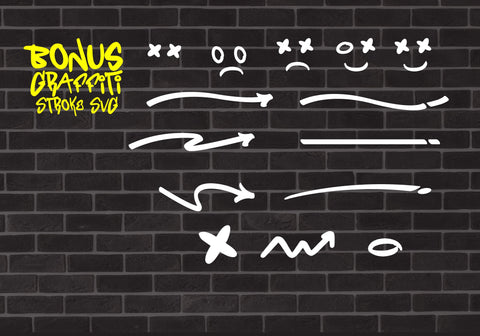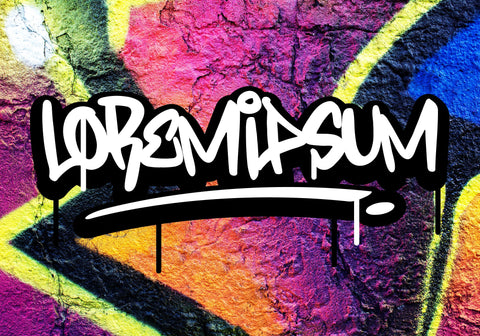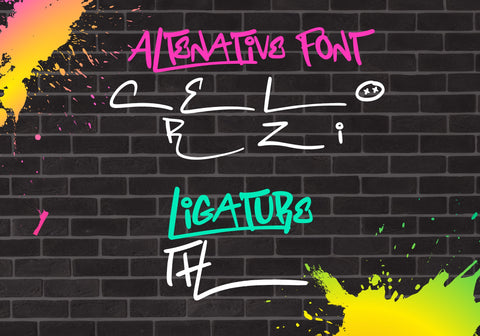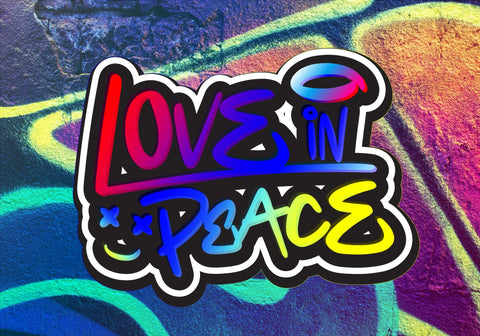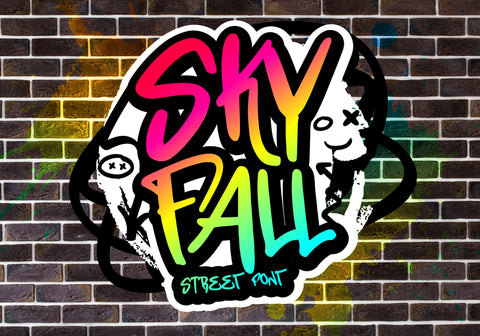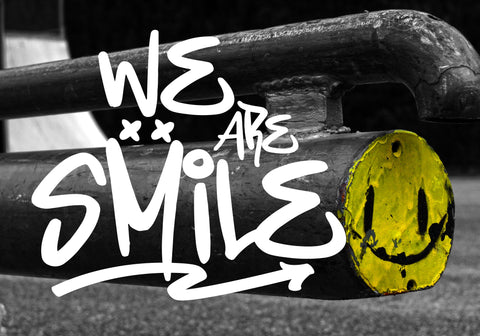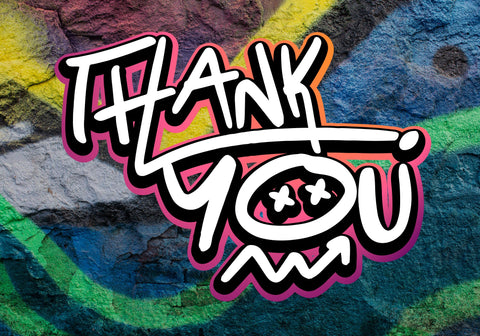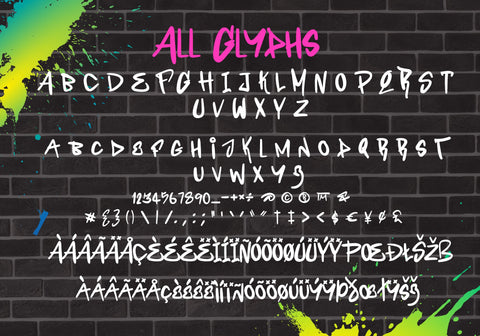
Sky Fall
Sky Fall is an awesome, graffiti-styled display font that has a street art vibe. This font is suitable for designs such as t-shirts, sportswear, logos, advertisements, clothing, and more.